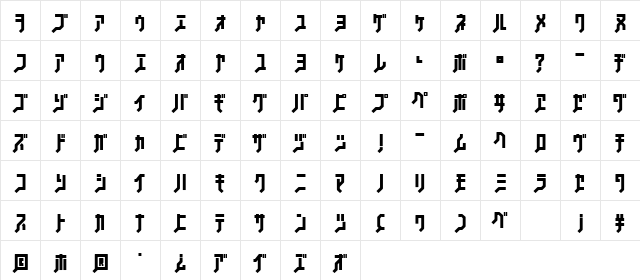
FSB08KlangNormalKt Regular
Design Context for FSB08KlangNormalKt Typeface
FSB08KlangNormalKt is a composed and adaptable typeface that performs quietly and consistently across a wide range of design contexts.